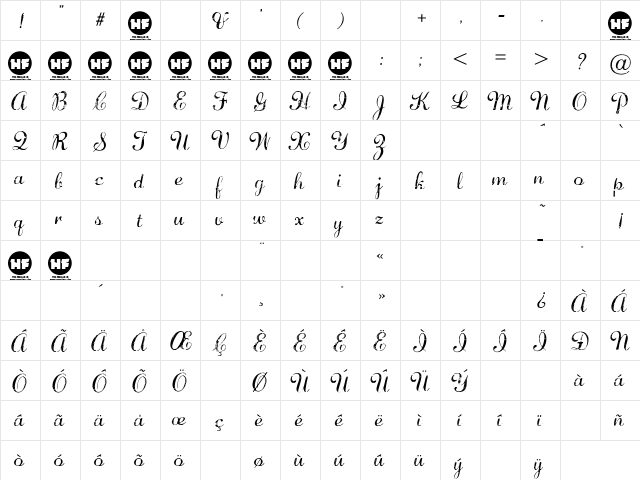
Diamond Dust Regular
| Foundry | Hypefonts/Guilhem GRECO |
| Designer | Guilhem GRECO |
Design Context for Diamond Dust Typeface
Diamond Dust is a composed and adaptable typeface that performs quietly and consistently across a wide range of design contexts.